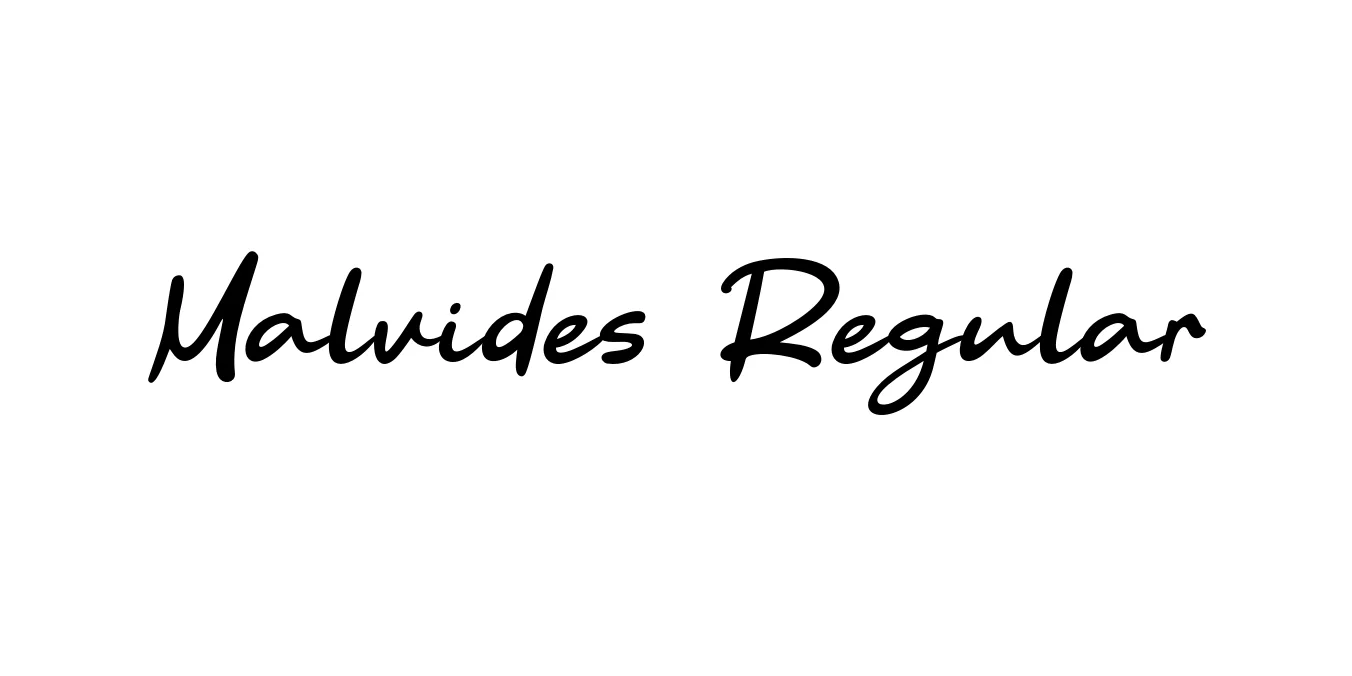
Malvides Regular
Designed by Maulana Creative
Malvides Regular is a stunning, handmade brush font designed by Maulana Creative. Characterized by its rustic texture and natural strokes, this typeface captures the essence of authentic handwriting. It features a bold weight that makes it stand out in display settings, providing a sense of energy and artisanal craftsmanship to any creative project.
The font includes a comprehensive set of uppercase and lowercase letters, along with numerals and basic punctuation. Its versatile nature allows it to blend seamlessly into various design aesthetics, from vintage to modern rustic. Whether used for branding or social media graphics, Malvides Regular ensures a unique and personalized touch that resonates with audiences.
Malvides Regular Best Uses
Perfect for creating bold, handwritten logos with a personal touch.
Great for eye-catching Instagram quotes and Facebook headers.
Adds a rustic, artisanal feel to product labels and boxes.
Ideal for t-shirt prints and merchandise branding.